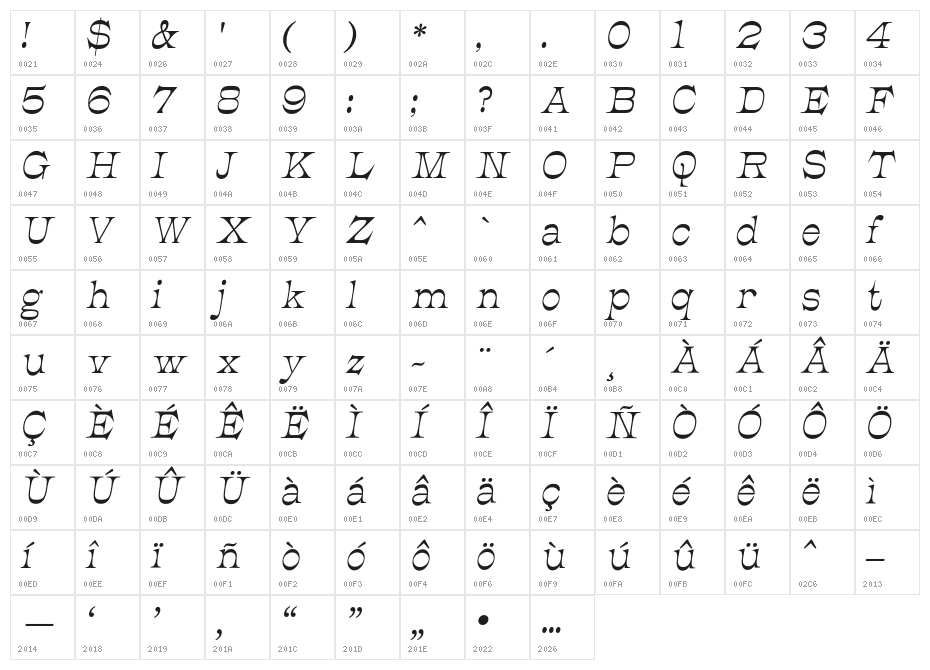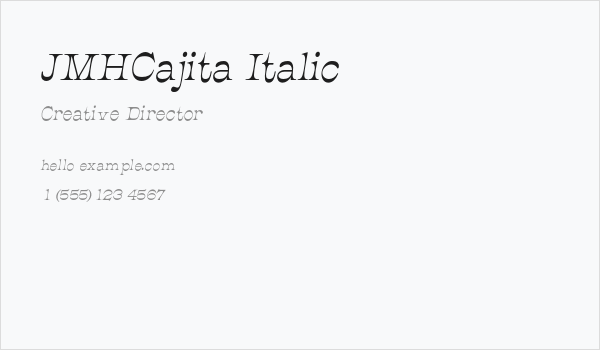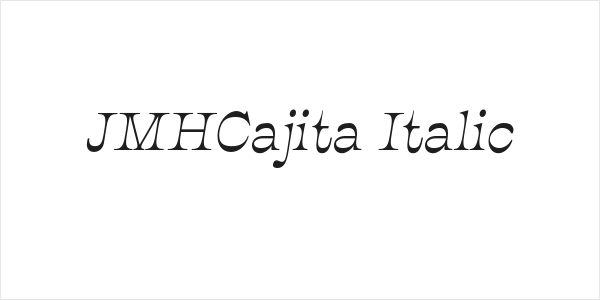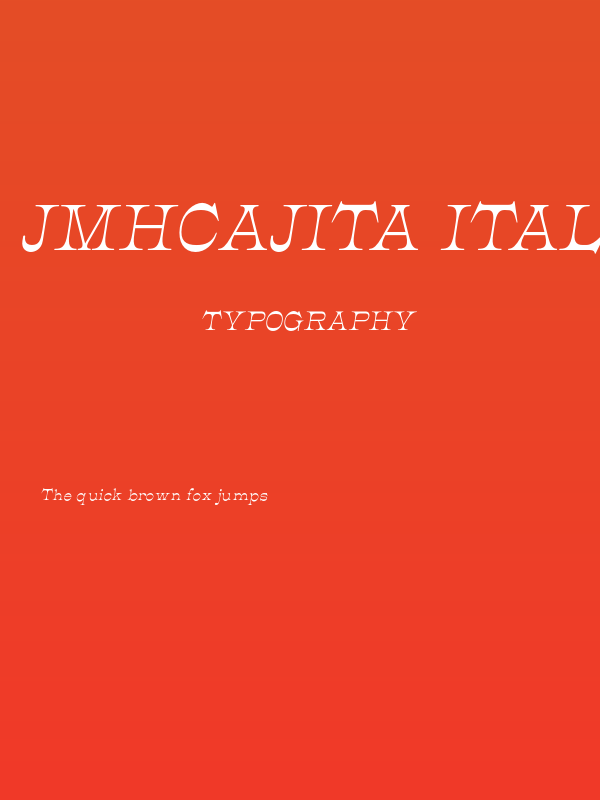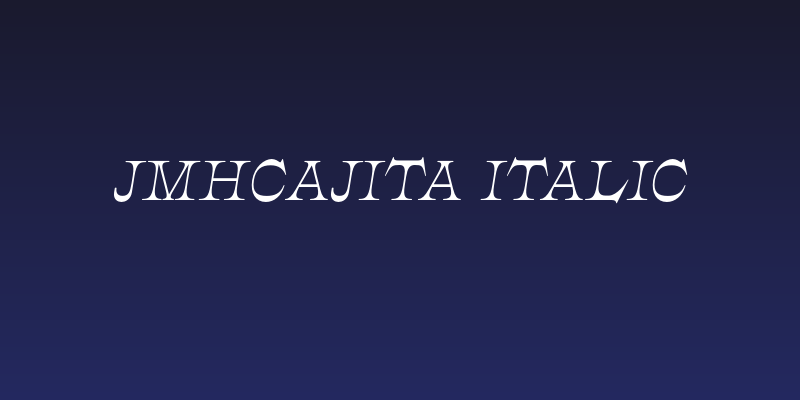
JMHCajita-Italic Font
JMHCajita-Italic Description
This font features a unique blend of elegance and flair, characterized by its italicized style and distinct serifs. The letters have a dynamic, flowing appearance, with sharp, angular serifs that add a touch of sophistication. The uppercase letters are bold and commanding, while the lowercase letters maintain a consistent style with slightly exaggerated curves. The numbers are well-proportioned, matching the overall aesthetic of the alphabet. Special characters are designed with the same attention to detail, ensuring a cohesive look across all glyphs. This font's italic nature gives it a sense of movement and grace, making it suitable for creative and expressive design projects.
| Proposed Projects | Ideal for branding, editorial design, invitations, and artistic projects that require a touch of sophistication. |